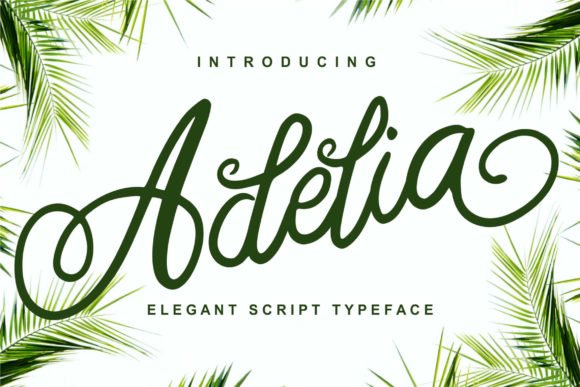
Discover the Magic of Adelia Font
Have you ever stumbled upon a design that just makes you feel like anything is possible? For me, it’s the moment when a project comes together, and all the pieces fall into place. The colors, the textures, the typography – it’s like a symphony of creativity. And that’s exactly what Adelia Font is all about: creating a unique and authentic vibe that elevates your crafting ideas to the next level.
Adelia Font is a fun and bold script typeface that’s perfect for adding a touch of personality to your designs. Its unique style makes it stand out from the crowd, and its versatility allows you to use it in a wide range of projects, from digital art to handmade crafts. Whether you’re a seasoned designer or a crafting newbie, Adelia Font is a valuable addition to your toolkit.
Adelia Font Key Features
- Unique Characteristics: Adelia Font features a unique, elegant design with subtle flair and flair tips, making it ideal for formal and professional applications.
- Font Weight: Adelia Font is available in a range of font weights, from Light to Bold, allowing for versatility in typography and design.
Adelia Font Review
As a designer, I was excited to try out the Adelia Font. Here’s my honest review.
- ✨ Beautiful Calligraphy: The Adelia Font features stunning calligraphy that’s perfect for headings and titles.
- ✨ Elegant and Refined: The font’s elegant design makes it suitable for a wide range of applications, from wedding invitations to high-end branding.
- ✨ Versatile: The font comes in multiple weights and styles, making it easy to customize and adapt to different design needs.
- ⚠️ Limited Legibility: At smaller font sizes, the Adelia Font can become difficult to read due to its intricate design.
The Adelia Font is a beautiful and elegant choice for designers looking to add a touch of sophistication to their projects. While it has some limitations, its unique design and versatility make it a great option for the right applications. With a little caution and consideration, the Adelia Font can be a valuable addition to any designer’s toolkit.
Adelia Font is a great choice for Canva users who want to create elegant and sophisticated designs. Use it for headings, titles, and other text elements that require a touch of luxury.
Adelia Font is a versatile font that can be used for a variety of designs, from logos to typography-based art.
Adelia Font is a great choice for PowerPoint and Word users who want to add a touch of elegance to their presentations and documents.
- Use Adelia Font for headings and titles to add a touch of sophistication.
- Combine Adelia Font with other elegant fonts to create a cohesive design.
Adelia Font is commonly used for:
- Luxury branding and marketing materials.
- Write the invitation title in bold, cursive letters, emphasizing the whimsical nature of the event.
- Add decorative flourishes, such as leaves or flowers, to the font to match the woodland theme.
- Pair Adelia Font with a natural, earthy color scheme and textures, such as wood or burlap.
- Use a watercolor or hand-drawn effect to give the invitation a personal touch.
- Write a meaningful quote in a flowing, cursive script, emphasizing the emotional impact of the words.
- Add decorative elements, such as ornate borders or illustrations, to frame the quote and enhance its visual appeal.
- Pair Adelia Font with a distressed or vintage-inspired background, such as a worn leather texture or a faded photograph.
- Use a muted color palette and subtle lighting effects to create a warm and intimate atmosphere.
Adelia Font Project Ideas
Create a unique and eye-catching invitation for a woodland-themed wedding or event.
Project 2: Vintage-Inspired Quote Art
Design a beautiful and inspiring quote art piece using Adelia Font.
Project 3: Elegant Wedding Menu
Design a sophisticated and elegant wedding menu using Adelia Font.